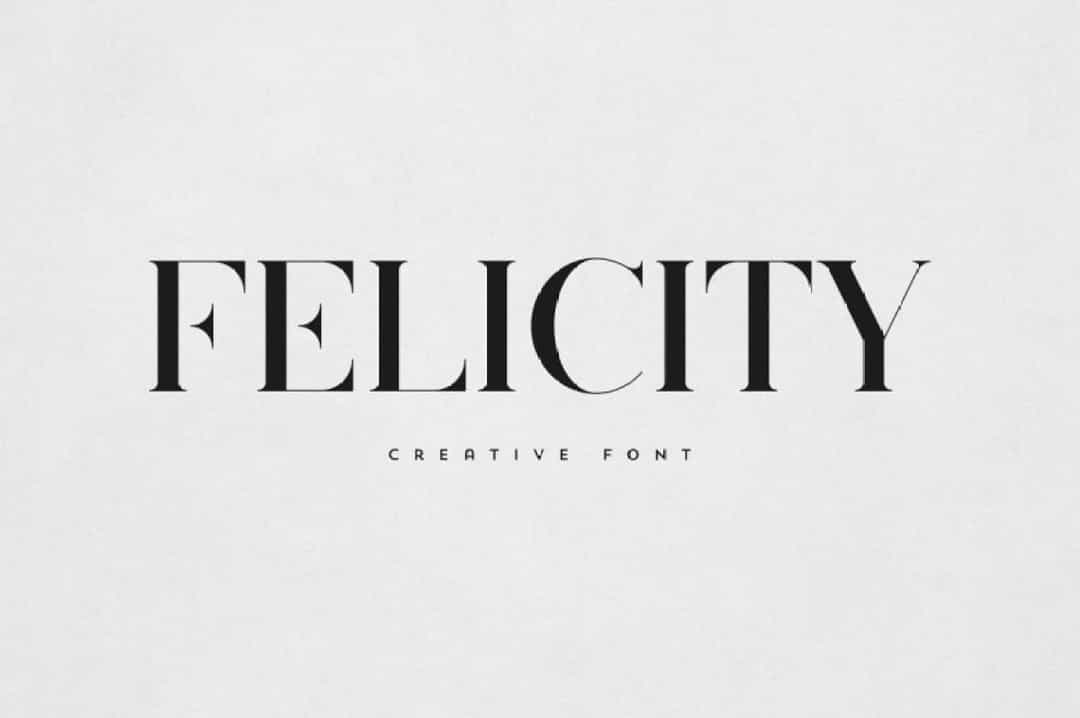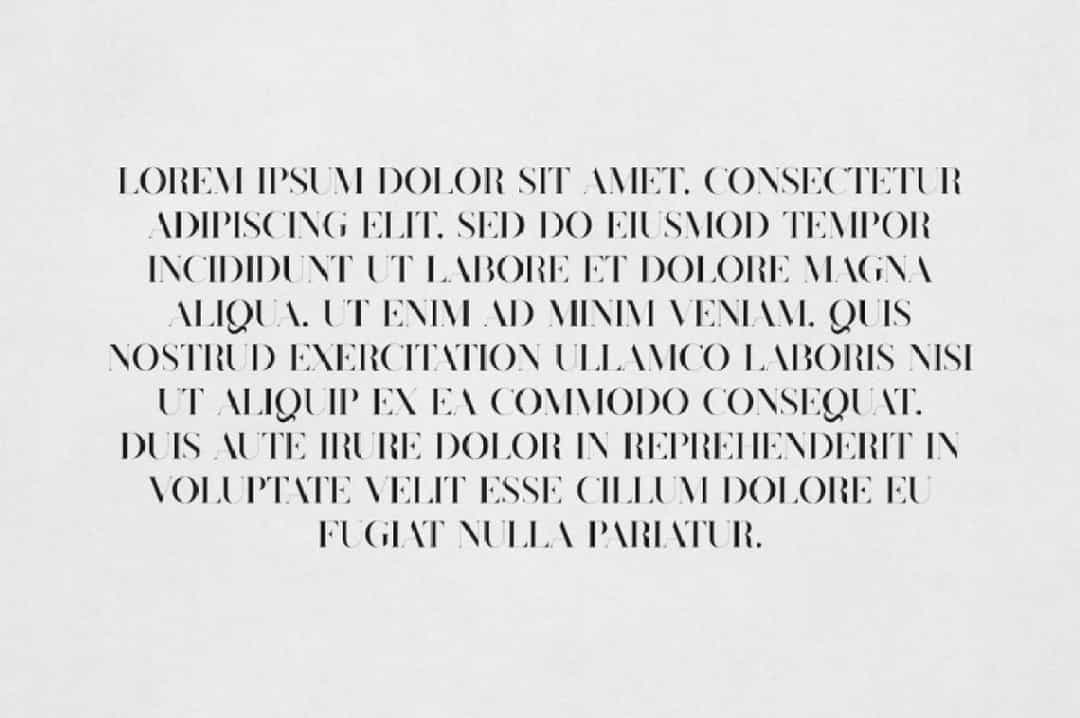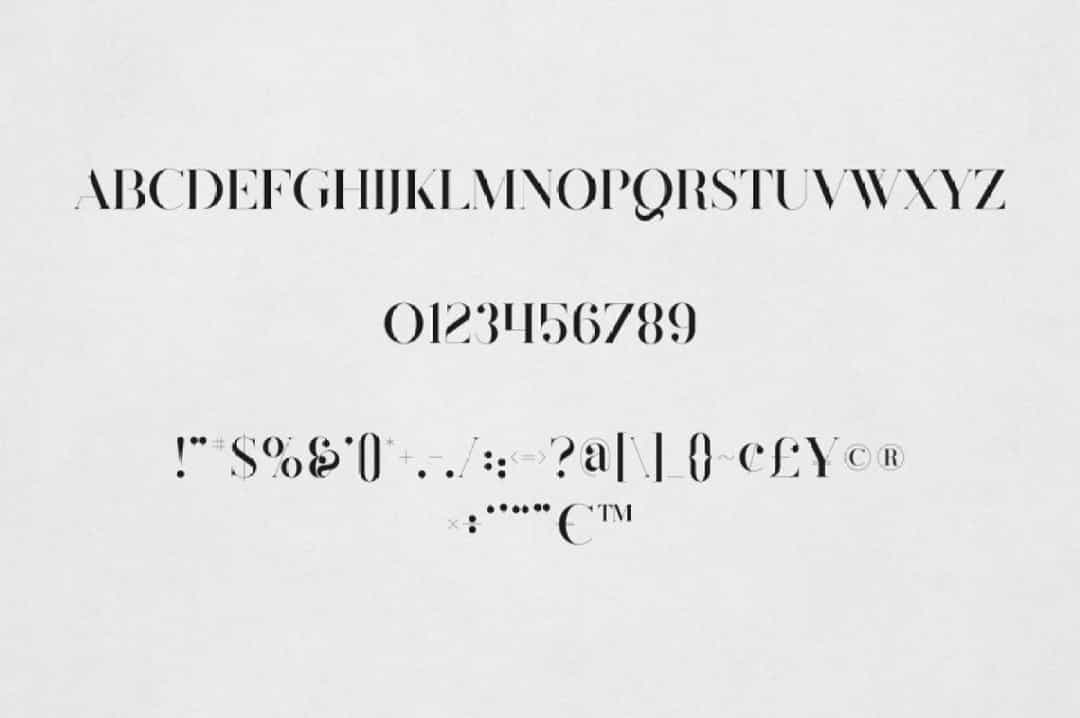
Felicity is an elegant and adaptable serif font designed to make your typography stand out! Perfect for headlines, logos, branding or plain text alike – Felicity will add sophistication and charm to any piece!